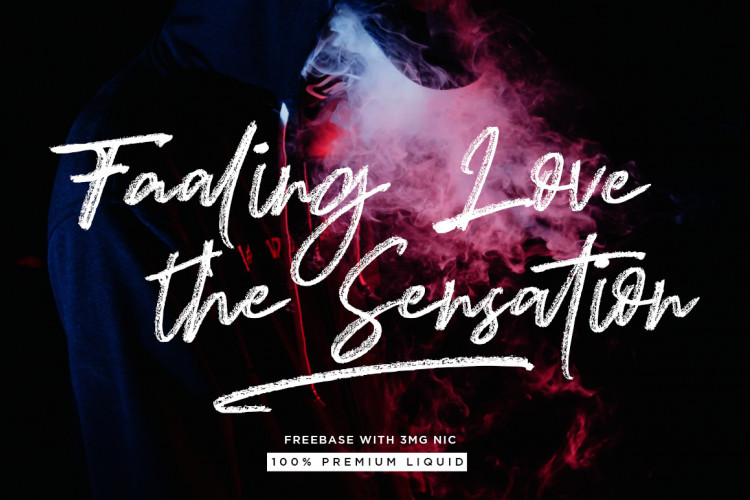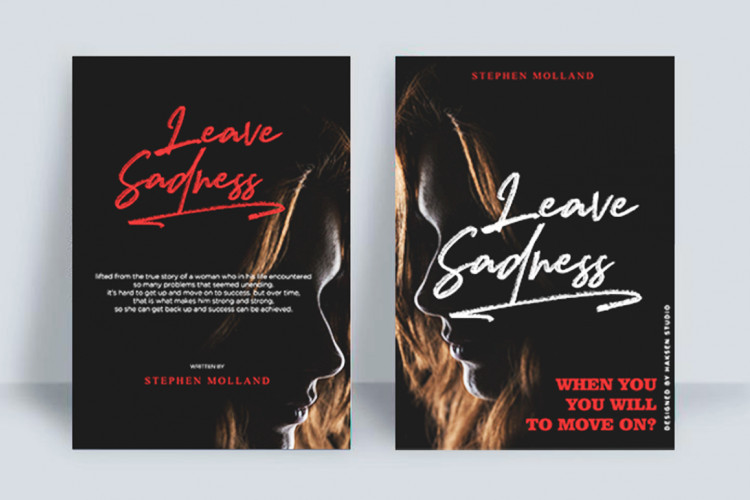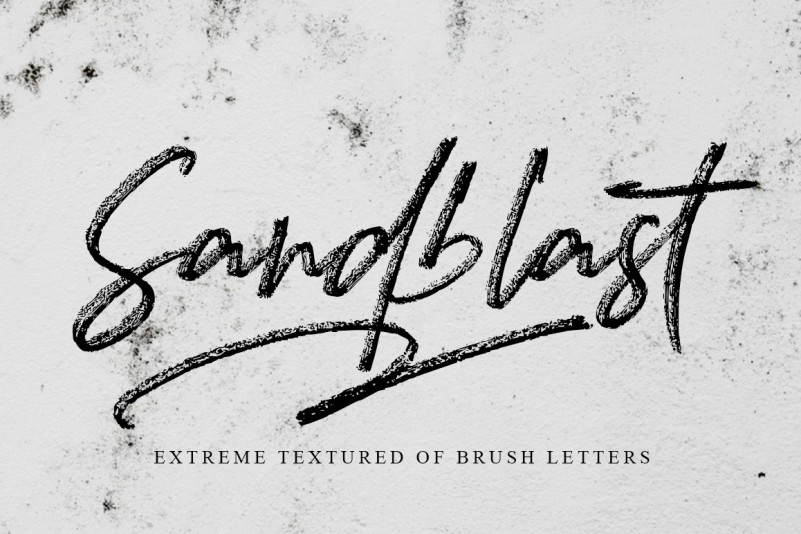
Sandblast Font
Sandblast is a extreme textured for brush script, I design it with real write my hand, I really hope you will enjoy it so much when using this font.I love using this one with layer masks in Photoshop, really look natural written.